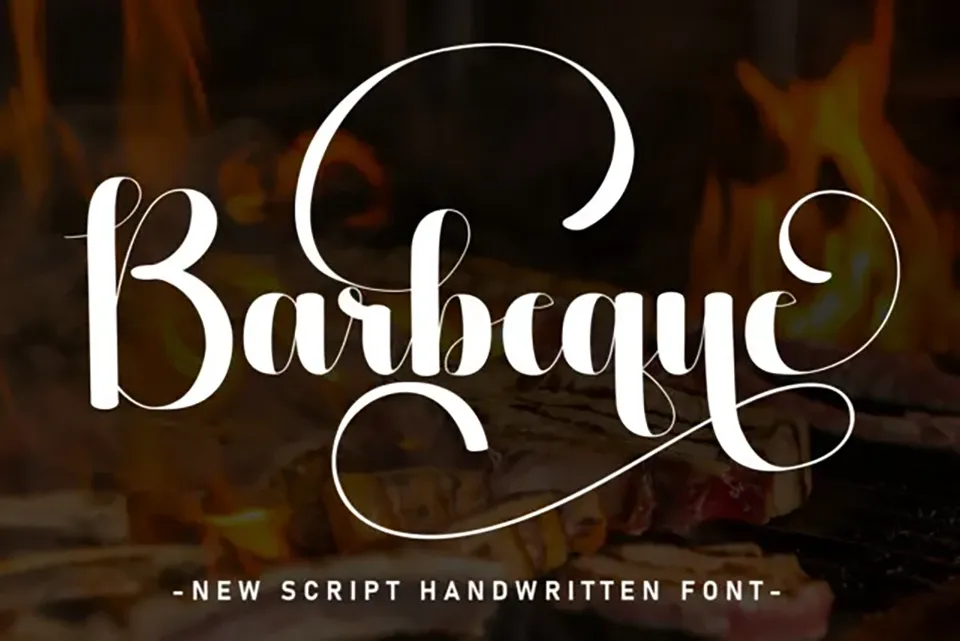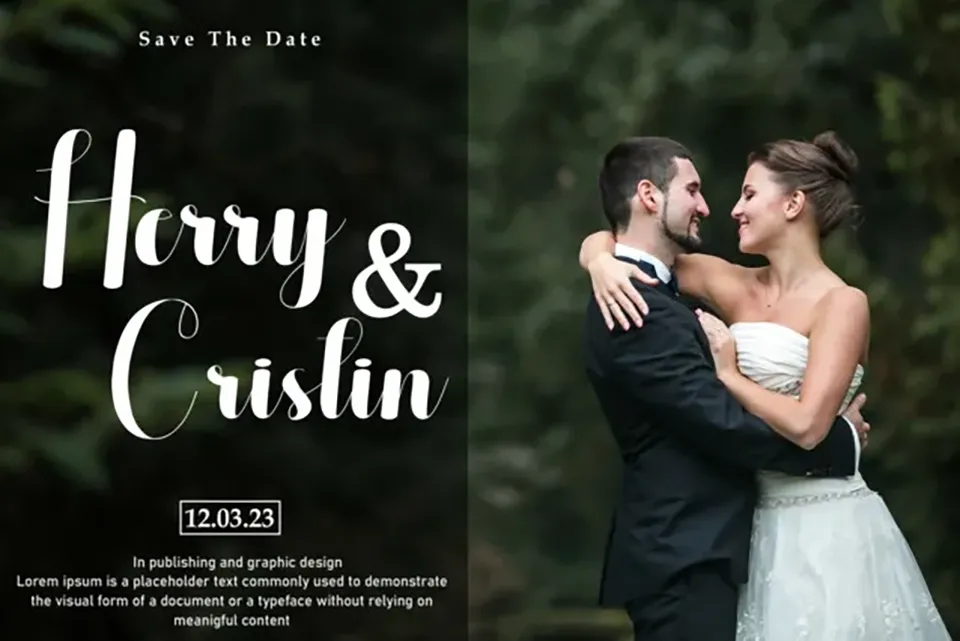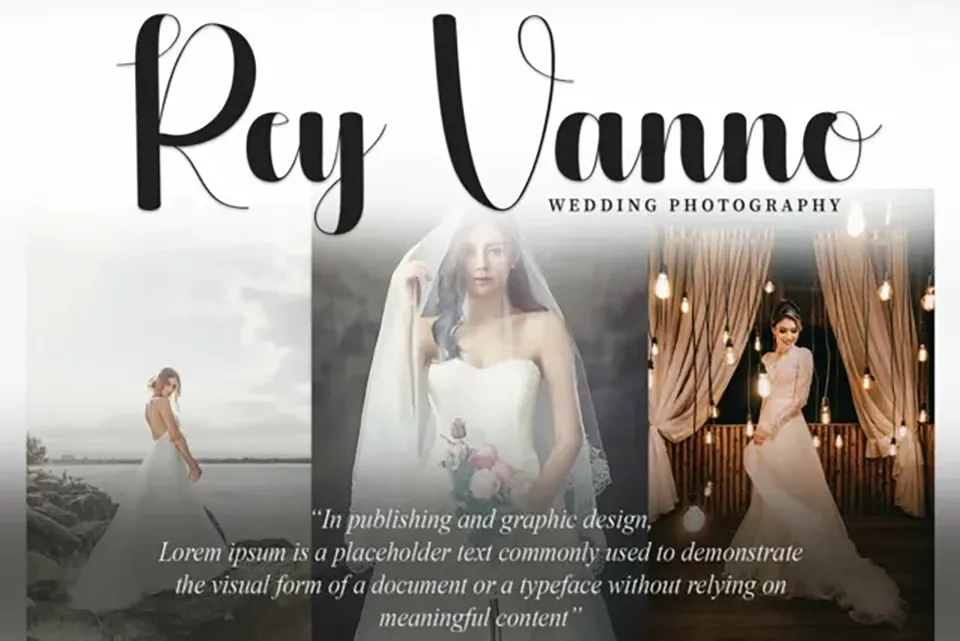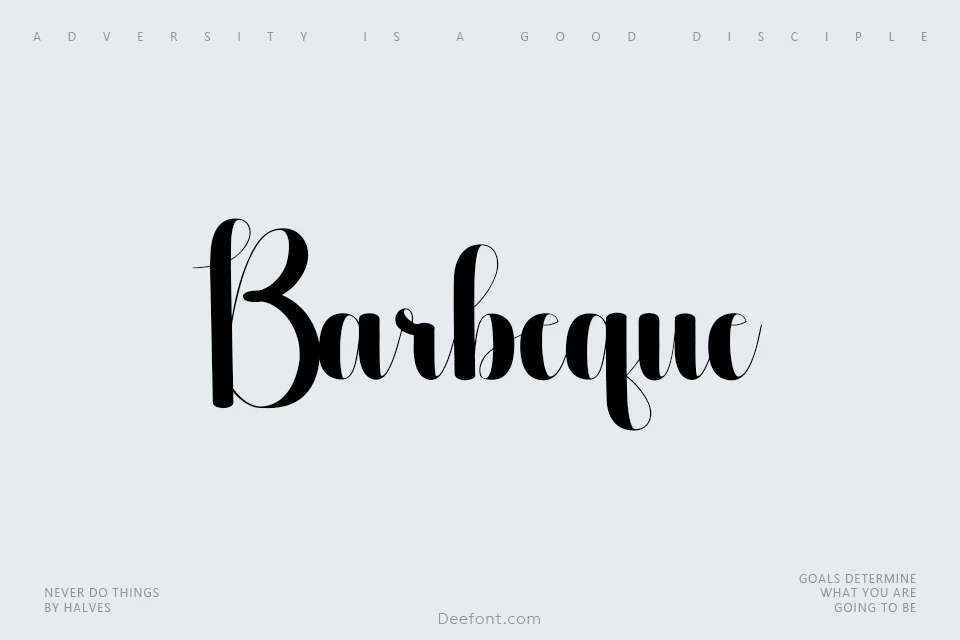
Barbeque Font
Barbeque Font is a stunning script handwritten typeface that radiates elegance and charm. With its flowing curves and intricate details, this font is perfect for creating designs that demand sophistication and style. Ideal for logos, invitations, branding, and social media graphics, Barbeque Font adds a touch of class to any project. Its smooth, decorative strokes make it versatile for both formal and creative applications, ensuring your text stands out beautifully. Whether you’re designing for events, food-related themes, or artistic projects, Barbeque Font delivers a timeless aesthetic that enhances your work with grace and personality.